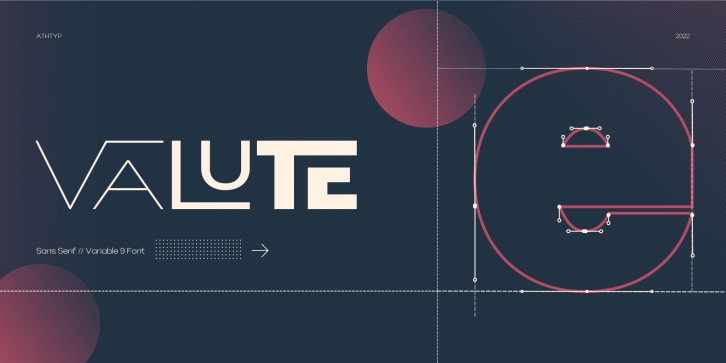
Valute is a custom font with variable typeface, but at first glance it looks very mischievous. Very thincontrasting lines are very legible with heavy use of paragraph text. We made Valute with 9 weights that include ligatures and are multilingual.